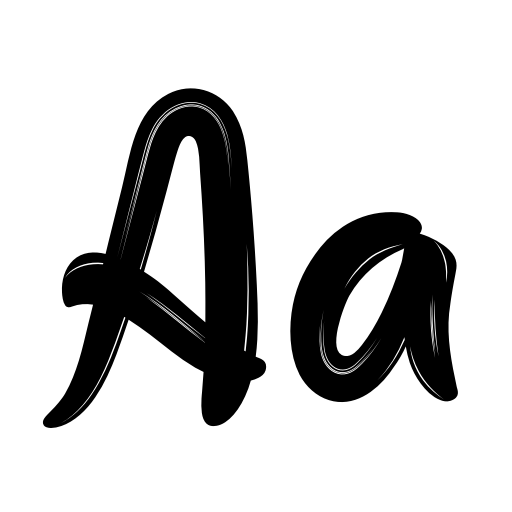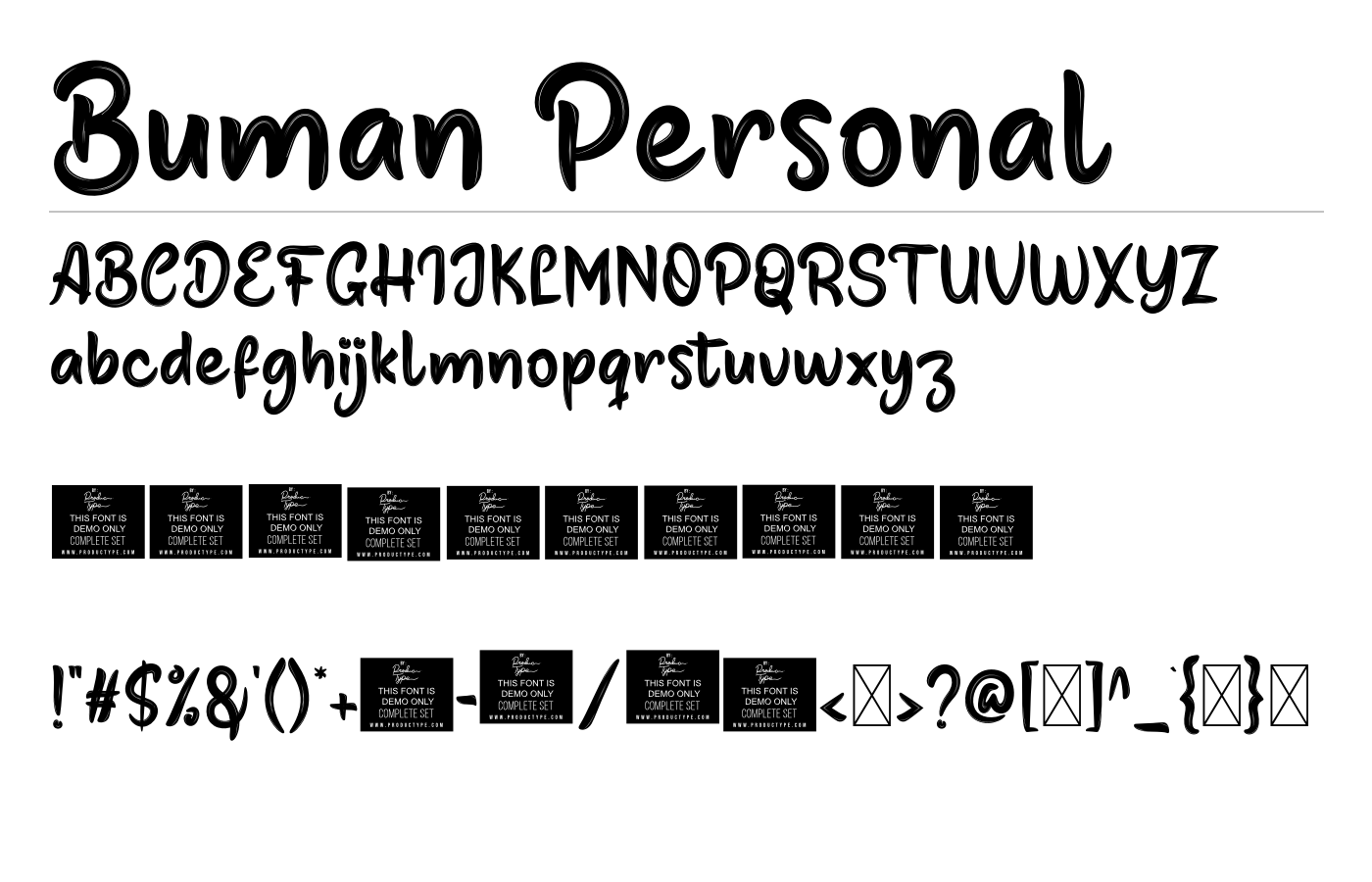
Buman Personal is a playful, hand-drawn script font with a bold, rounded style that adds warmth and personality to any design. Its casual strokes and lively curves make it perfect for creative projects, branding, and editorial work that seek a friendly and approachable feel. This font works especially well in headlines and logos where a personal, informal touch is desired.
Buman Personal Font
About Buman Personal Font